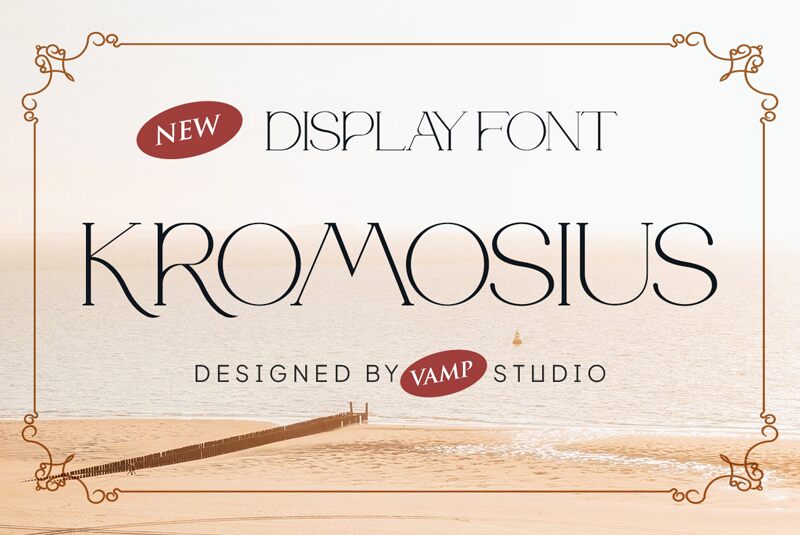
Kromosius
Kromosius font by VampStudio is a free light serif font with an elegant, modern design. The sophisticated appearance of its letters and numbers translates through the font as a whole. Its minimalistic style is furthermore evident while maintaining high legibility when used in texts.
Designed mainly for display purposes, Kromosius can be used in headings (websites, books, magazines), titles (films or videos), large poster designs, covers and packaging designs. Its elegance makes it suitable for branding projects and even certificates.
Kromosius Typeface By Vampstudio